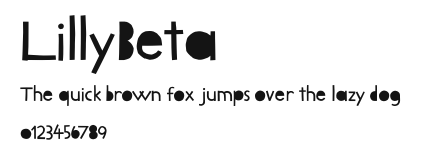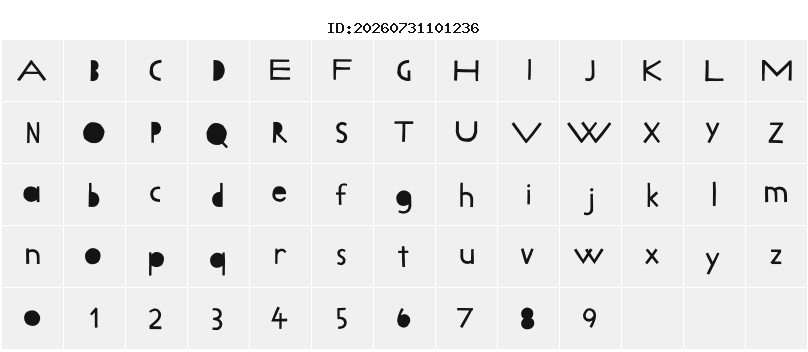
• Font Name: LillyBeta
• Designer: Ursula Hitz
• Manufacturer: Letters & Numbers
• Description: LillyBeta Regular is a font by Letters & Numbers, designed by Ursula Hitz in 2015.
LillyBeta.ttf is a modern, elegant sans-serif font designed for ultimate readability and visual harmony. Perfect for branding, headlines, web design, and print materials.